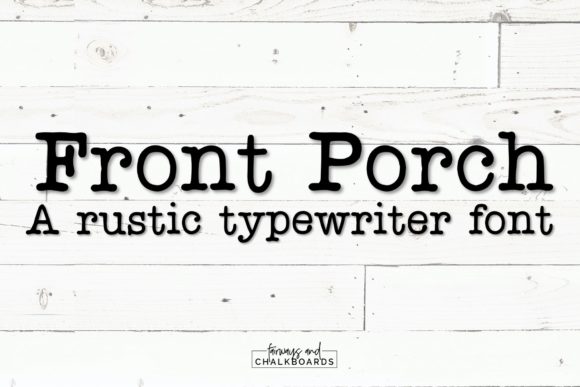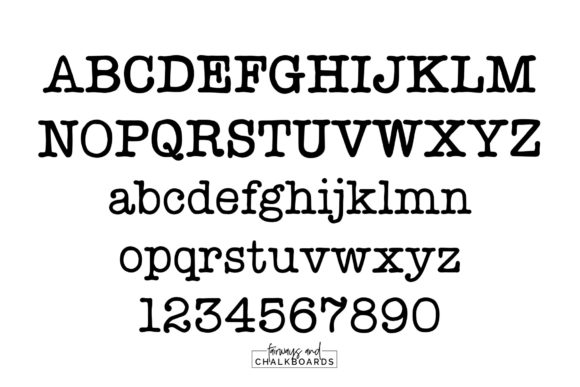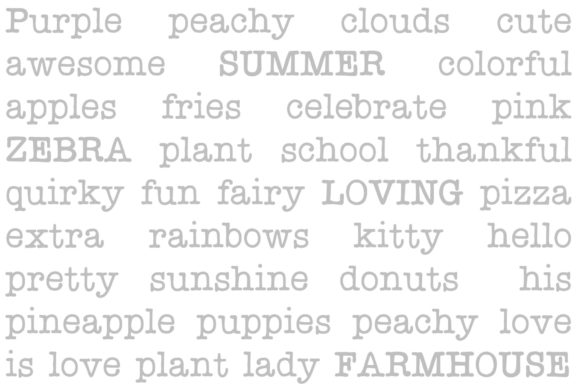
Front Porch
Front Porch: A Cool Retro-Styled Slab Serif Font
Front Porch is a stylish slab serif font that embodies a cool, retro aesthetic. Its unique design makes it an excellent choice for a variety of creative projects, ensuring your designs have a nostalgic yet modern feel.
Key Features of Front Porch
• Retro Design: Features vintage-inspired letterforms that evoke a sense of nostalgia.
• Cool Aesthetic: Offers a trendy look that resonates well with contemporary design themes.
• Slab Serif Structure: Incorporates the characteristic thick, rectangular serifs typical of slab serif fonts.
• Versatile Application: Perfectly suited for various projects, from print to digital media.
• Impactful Quality: Designed to enhance your creative ideas and make them visually striking.
Ideal Uses for Front Porch
Front Porch’s unique characteristics make it particularly well-suited for:
• Newspaper titles that require a bold statement.
• Magazine covers that need eye-catching typography.
• Logos and branding that aim for a vintage feel.
• Posters and advertisements that benefit from strong visual appeal.
• Any creative project that seeks to convey warmth and familiarity.
When incorporating Front Porch into your designs, consider the following tips:
• Use for both large headlines and smaller text blocks to showcase its versatility.
• Experiment with different sizes to highlight the font’s retro details.
• Pair with complementary fonts to create contrast and visual interest.
• Take advantage of its nostalgic nature in projects where you want to evoke sentimentality.
Front Porch is an excellent choice for designers looking to add a cool, retro-styled slab serif font to their typographic toolkit. Its ability to enhance various design projects makes it stand out in the world of typography. Whether you’re working on branding, creating layouts for print media, or developing marketing materials, Front Porch offers the perfect blend of nostalgia and modernity.
Add Front Porch to your creative projects and explore how it can elevate your designs with its charming and impactful style. From striking headlines to memorable branding elements, this font provides the tools to create engaging typography that resonates with audiences.